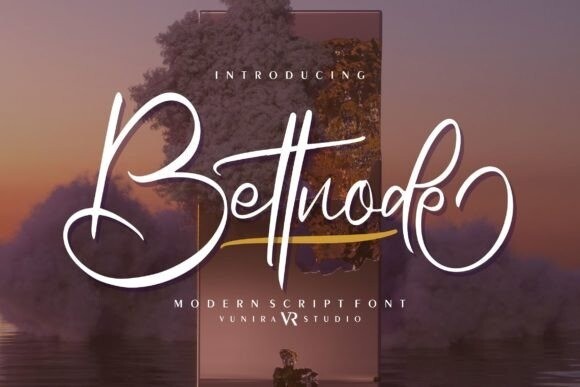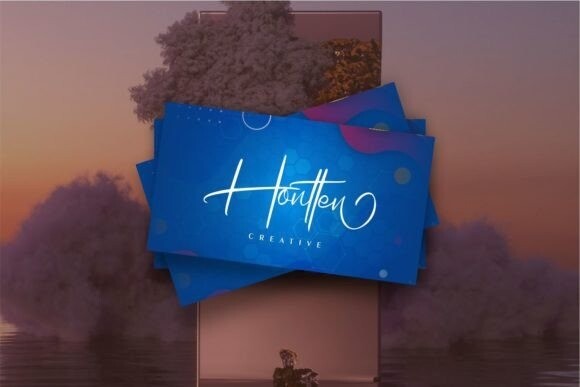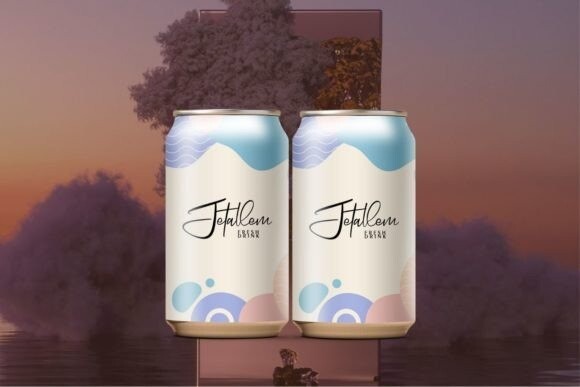
Bettnode Font
Bettnode is a modern script font with a calligraphy style. It will look so beautiful on invitations, greeting cards, branding materials, business cards, quotes, posters, and more!